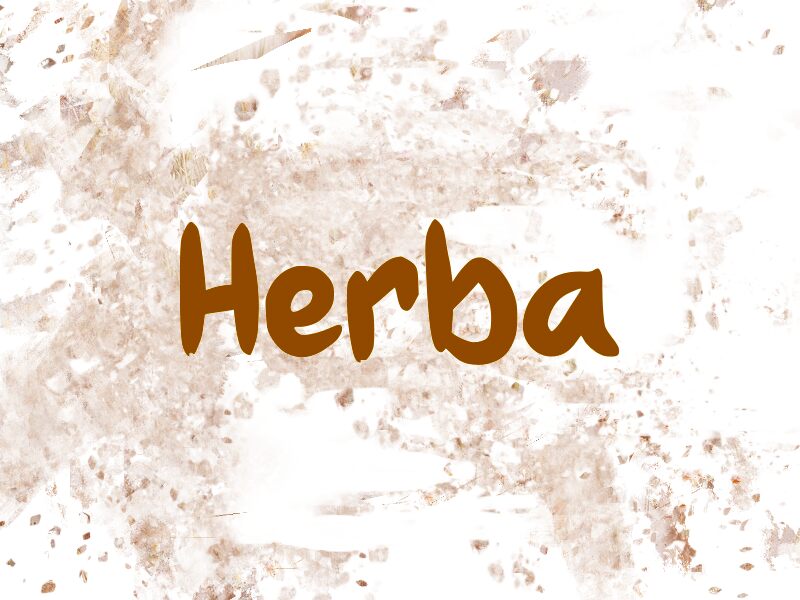
Herba
Herba font by Wep is an informal comic-style typeface. It features consistent bold characters inspired by plant leaves; each letter has unique subtle-rounded edges. The whimsical font carries a friendly mood suitable for paper printed or screen digital display. Herba is free to use for personal and commercial design projects.
Use Herba in gaming, book covers, social media posts, packages and labels, film posters, apps & games UI. Smile widely as you explore your limitless creativity with this fantastic free font!